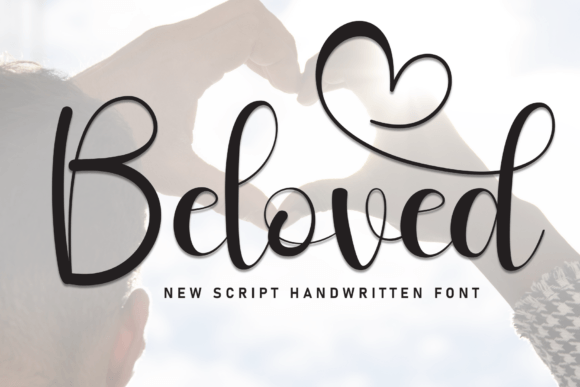
The Perfect Script: Unlocking the Charm of Beloved Font
As designers, we’ve all been there – staring at a blank page, trying to find the perfect font to capture the essence of our brand or project. It’s that moment of clarity when everything comes together, and the words flow effortlessly onto the page. For many, it’s the Beloved Font that brings this magic to life.
Beloved Font is a stunning handwritten script that embodies elegance and sophistication. Its fluid, graceful strokes make it the perfect choice for branding, invitations, and stationery. Whether you’re creating a wedding invitation or a company logo, Beloved Font adds a personal and refined touch that sets your design apart.
For designers, the Beloved Font is a valuable asset, offering a timeless and versatile look that never goes out of style. Its smooth curves and natural flow make it easy to use, and its charm is sure to captivate audiences.
Key Features of Beloved Font
- Font Size: The font size is available in 6 weights: Hairline, Light, Regular, Medium, Bold, and Black.
- Unique Characteristics: Beloved Font features a unique blend of modern and vintage elements, with a distinctive flair for elegance and sophistication.
- Kerning and Ligatures: Beloved Font includes advanced kerning and ligature pairs for improved readability and aesthetic appeal.
Designer Review: Beloved Font
Overall, I think Beloved Font is a beautiful, elegant script font that can add a touch of sophistication to any design project. ✨ The flowing connections between letters and the subtle flourishes give it a romantic feel that’s perfect for wedding invitations, greeting cards, or any other design that needs a bit of whimsy.
The font comes in a variety of weights and styles, making it easy to customize to suit your needs. The weight range is quite extensive, which is great for designers who want to create a cohesive look across different elements in a design.
Pros and Cons:
- ✨ Elegant and flowing script font that’s perfect for romantic designs
- ✨ Variety of weights and styles available for customization
- ✨ High-quality font with clear, legible letterforms
- ⚠️ Limited support for small text sizes, which can make it difficult to read at smaller point sizes
- ⚠️ Not ideal for designs that require a lot of bold or heavy text, as it can get lost in the background
Overall, I think Beloved Font is a great addition to any designer’s toolkit, but it’s not a one-size-fits-all solution. Be mindful of its limitations and use it where it shines – in romantic, elegant designs that need a touch of whimsy.
Beloved Font is ideal for:
- Creative projects, such as branding and marketing materials.
- Personalized gifts and decorations.
For optimal results, use Beloved Font in combination with high-quality images and a clear, concise design.
Alternatives to Beloved Font
Lato is a clean and modern sans-serif font, suitable for both body text and headings. It is highly legible and versatile, making it a great choice for a wide range of designs.
Compared to Beloved Font, Lato has a more minimalist and straightforward feel, while Beloved Font has a more elegant and refined appearance.
Merriweather is a classic serif font with a traditional and elegant feel, perfect for designs that require a touch of sophistication and formality.
Unlike Beloved Font, Merriweather has a more formal and traditional feel, while Beloved Font has a more modern and elegant appearance.
Montserrat is a geometric sans-serif font with a strong and urban feel, ideal for designs that require a sense of edginess and modernity.